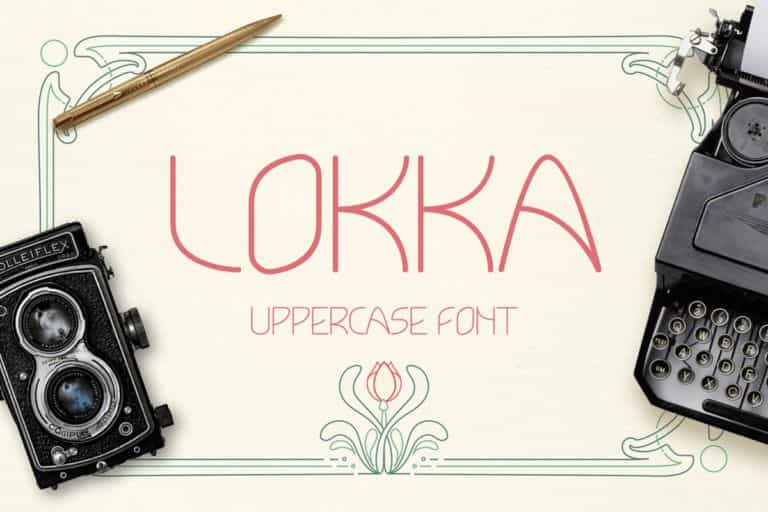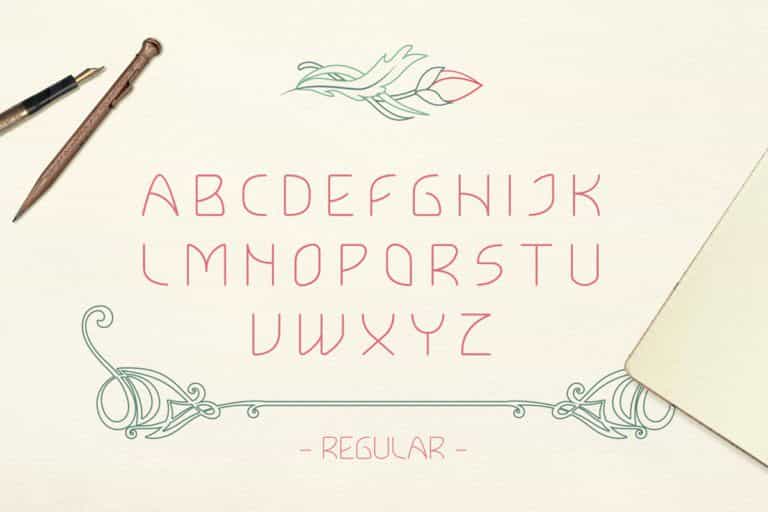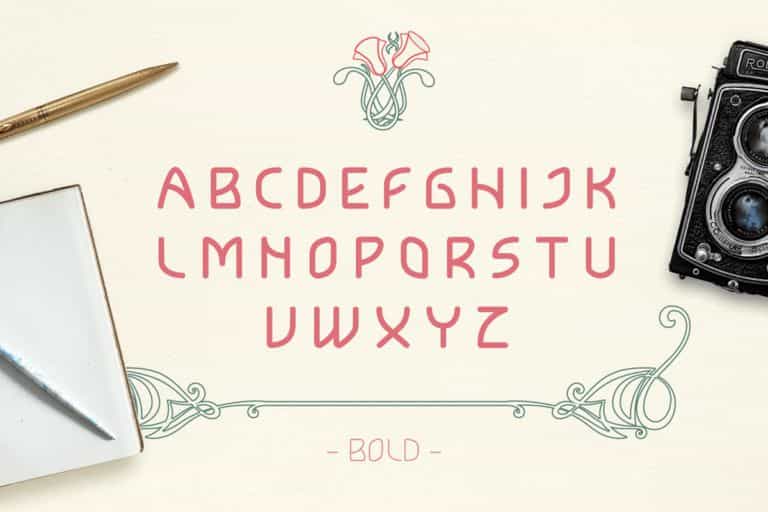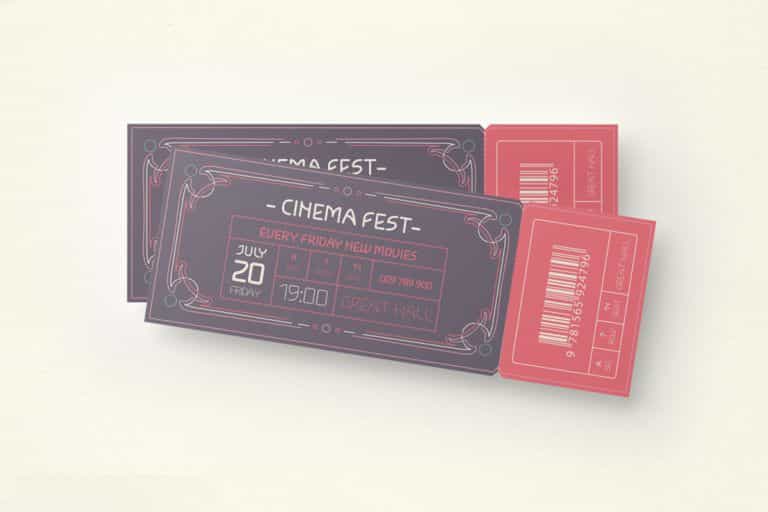
Meet Lokka, created by Evita Vilaka. Lokka Free Font is a geometric display font with a strong concealed construction underneath, giving it a modern retro feel. Lokka boasts regular and bold models. This model is great for short descriptions, logo and brand identity design, packaging, headline text, and more. Uppercase letters, numbers, and symbols are included.